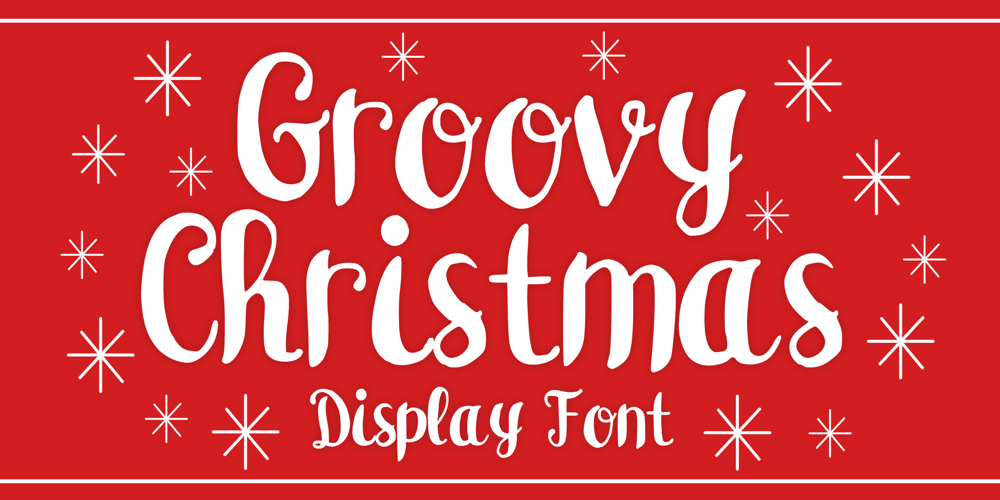
Groovy Christmas Font Family was designed by Gabriel Valentinus and published by Mvmet. Groovy Christmas contains 1 styles and family package options. Groovy Christmas is a playful script display font. You can use it for anything ranging from t-shirts, book designs, and greeting cards to stickers and posters, or anything that needs a casual touch. If you want to use it for Christmas or Valentine themed designs, it will be your perfect font to pick. Fall in love with its incredibly versatile style, and use it to create lovely designs!